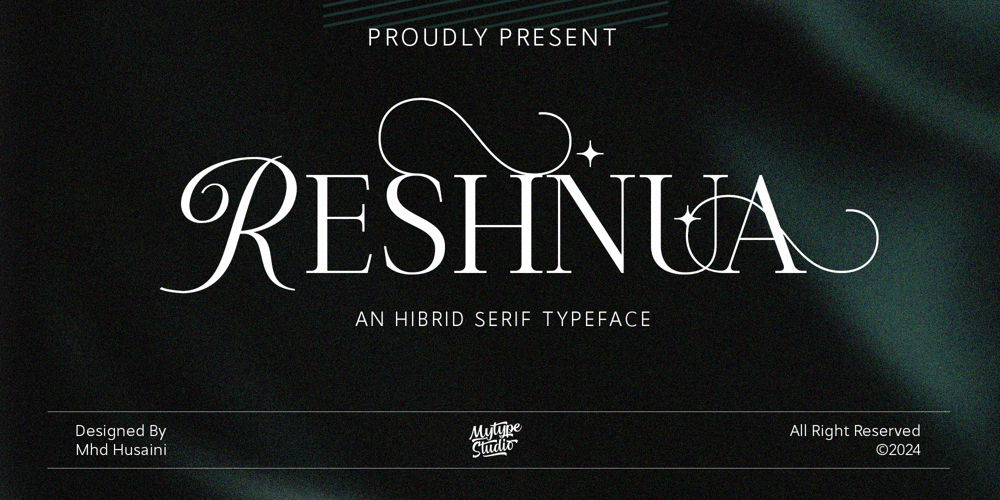
Reshnua Font Family was designed by Mhd Husaini and published by SimpleType Studios. Reshnua contains 1 styles and family package options. Reshnua is Serif collection font with natural movement make looks elegant, classy and beauty for your project. Reshnua is perfect for branding projects, logo, wedding designs, social media posts, advertisements, product packaging, product designs, label, photography, watermark, invitation, stationery and any projects.This gorgeous font includes all lowercase and uppercase characters, numbers, punctuation, an array of standard ligatures and a selection of international characters as well.